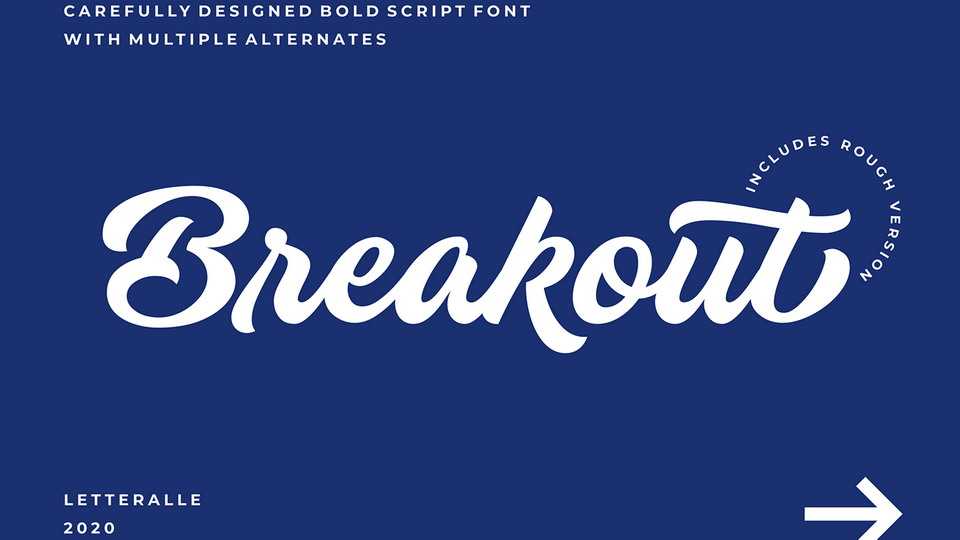
Download Breakout font, a carefully hand-lettered bold script to give a solid and standout impression. Breakout is suitable for logotype, digital printing, packaging, t-shirt, social media post, merchandise, and many more.
Designer: Letteralle Studio